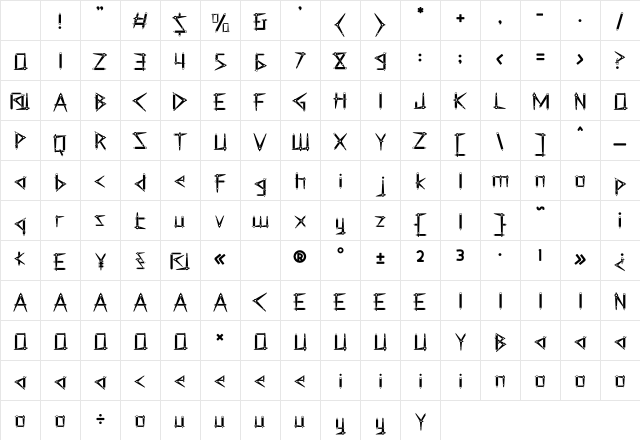
Complete Clever Science Caliper Regular glyph index. Displaying only characters natively supported by Clever Science Caliper Regular font.
Clever Science Caliper is a composed and adaptable typeface that performs quietly and consistently across a wide range of design contexts.